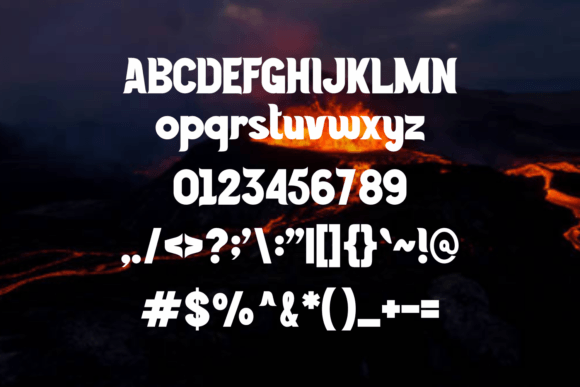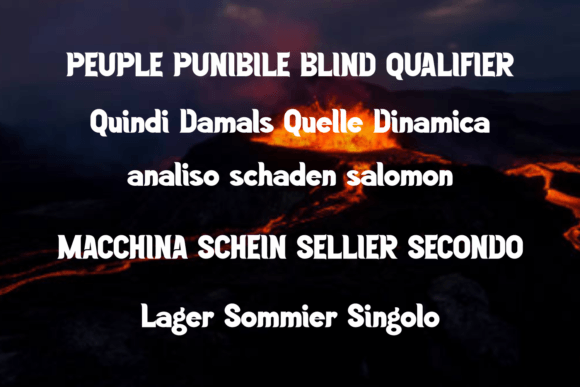
Narship Font
About Narship Font
NARSHIP FONT SPECIMEN
Narship is a fancy and modern slab serif font, perfectly suited on print/screen. It is perfect for branding, name cards, posters, logos, magazines, covers, banners, t-shirts, headers, or even large-scale artwork.